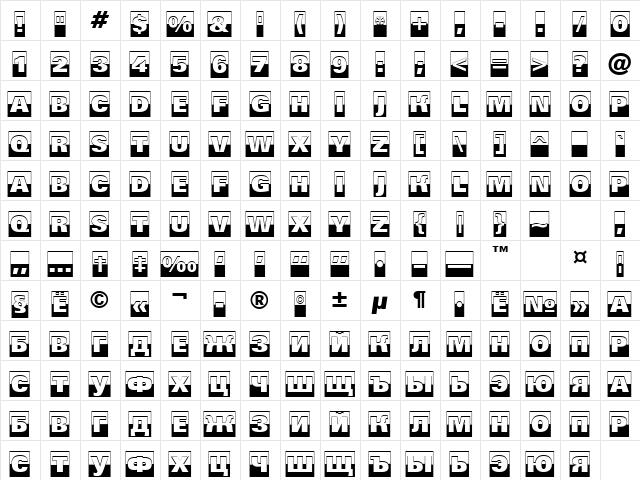
a_GroticTitulCmB&WHv Regular
Design Context for a_GroticTitulCmB&WHv Typeface
a_GroticTitulCmB&WHv offers clean, dependable letterforms without strong stylistic allegiance, making it a practical choice for designers who need flexibility.